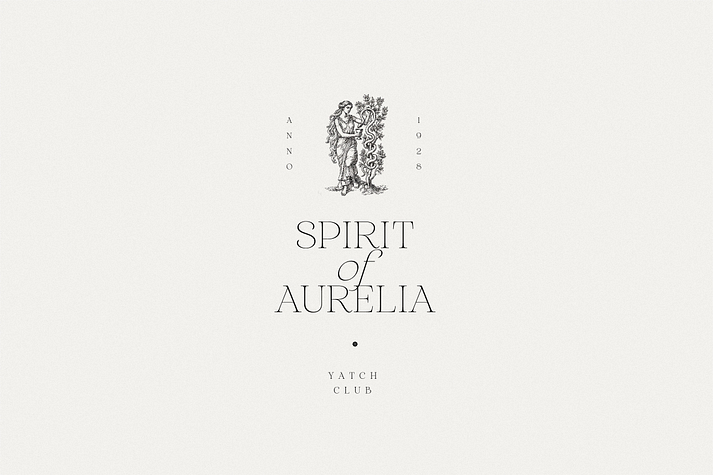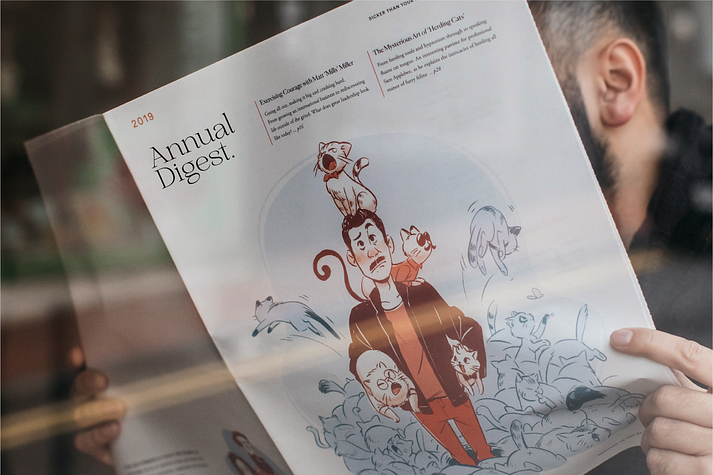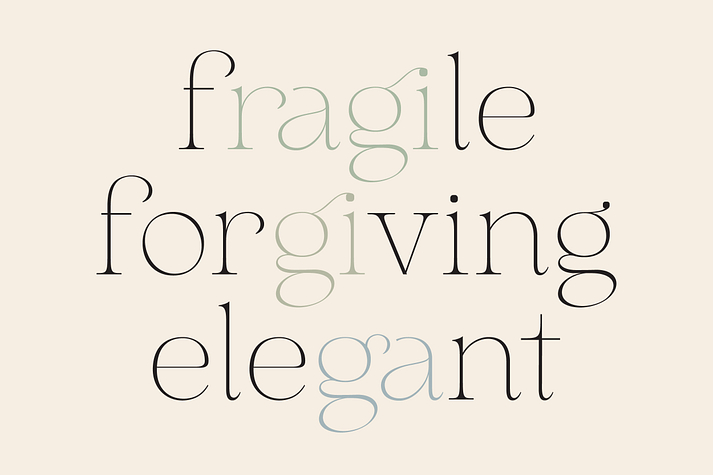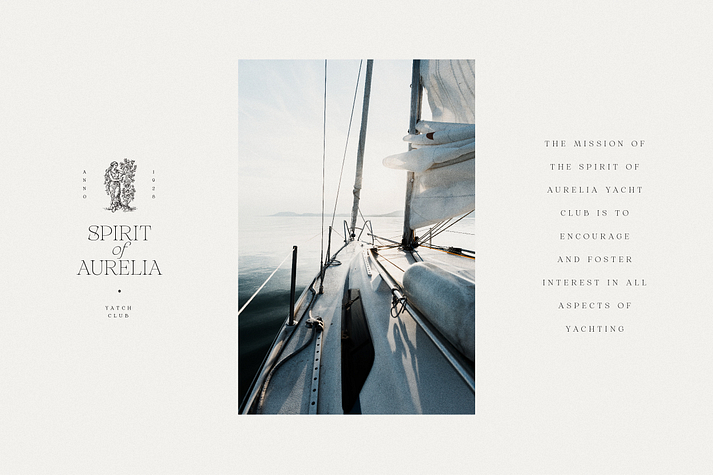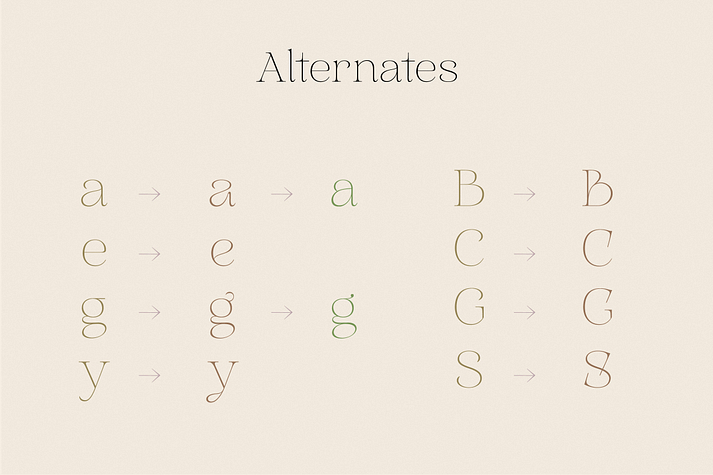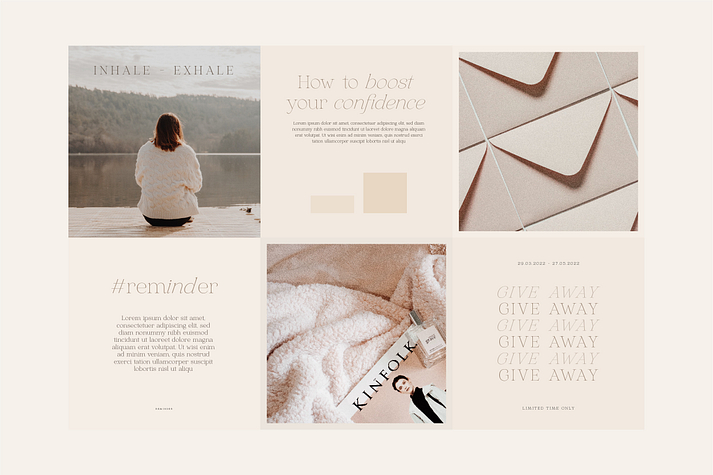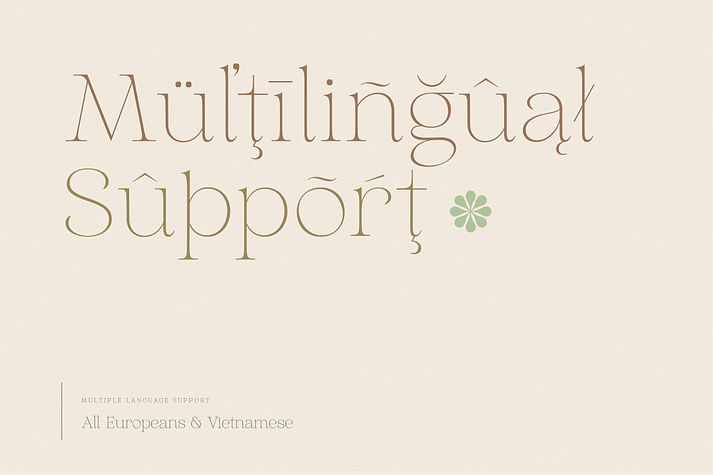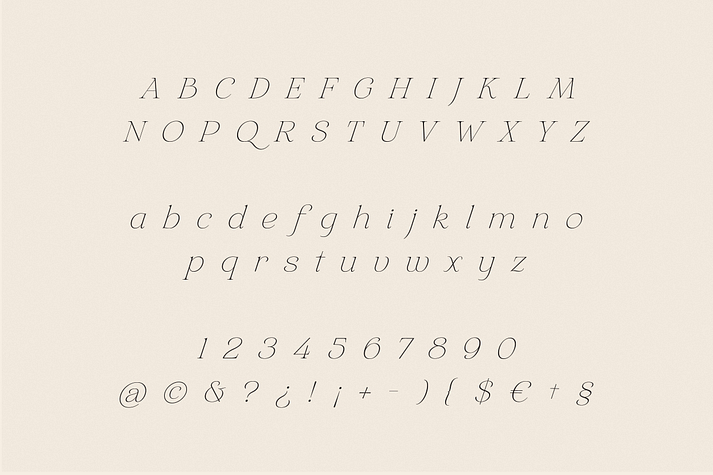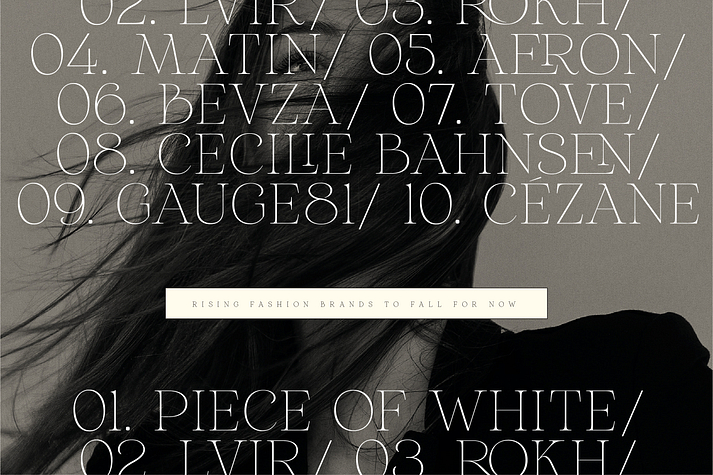
HV Aurelius
HV Aurelius is a display serif and serif font family. This typeface has three styles and was published by Harmonais Visual.
Aurelius is a refined and chic serif with delicate curves and subtle contemporary elegance.
Specially designed for luxury, elegant, feminine projects, Aurelius is perfectly suitable for creating modern, chic designs such as logos, packaging, editorial, and more.
HV Aurelius is a three font, display serif and serif family by Harmonais Visual.
HV Aurelius is a display serif and serif font family.
This typeface has three styles and was published by Harmonais Visual.
Aurelius is a refined and chic serif with delicate curves and subtle contemporary elegance. Specially designed for luxury, elegant, feminine projects, Aurelius is perfectly suitable for creating modern, chic designs such as logos, packaging, editorial, and more.
HV AURELIUS FEATURE:
• Europeans languages
• Vietnamese
• Ligatures
• Alternates